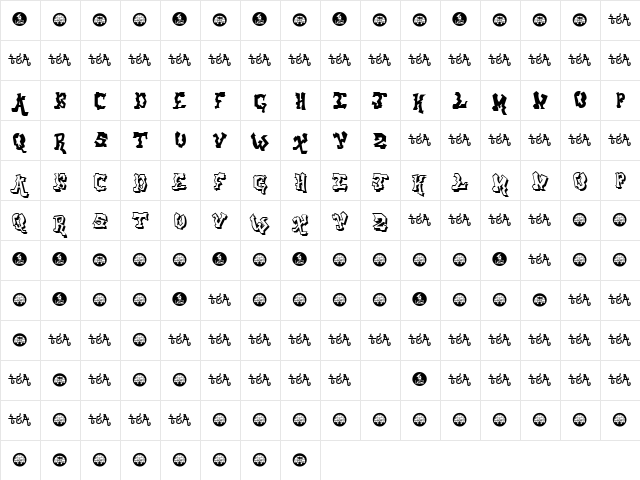
aerosol menace Regular Font Preview
aerosol menace Regular
Design Context for aerosol menace Typeface
aerosol menace is a composed and adaptable typeface that performs quietly and consistently across a wide range of design contexts.